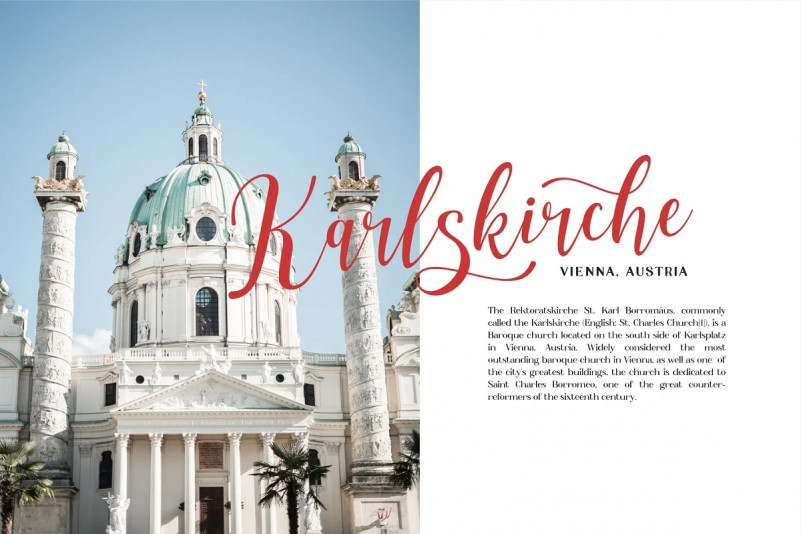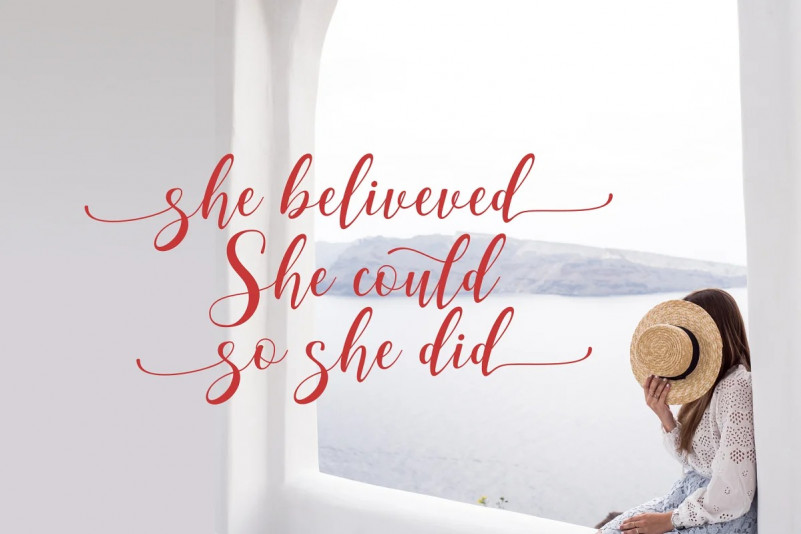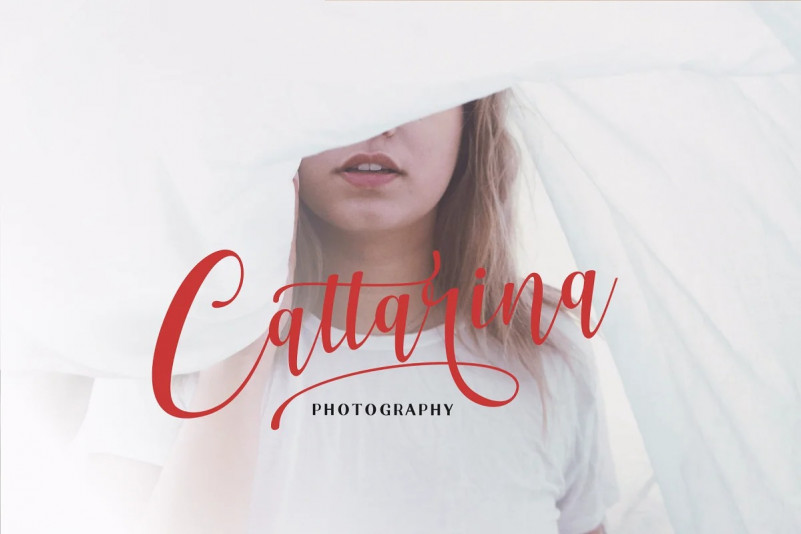
Aesthetica Font
Aesthetica Calligraphy Font
This is a lovely modern calligraphy font with authentic and casual feels. It’s designed and shared by Java pep. Aesthetica font comes with several of alternates, so you can switch on for the swashes, stylistic alternate, initial and terminal form (SS01-SS02). This font is perfect for logo font, branding, greeting card, cut files for quote, silhouette font design, monogram font, and etc.